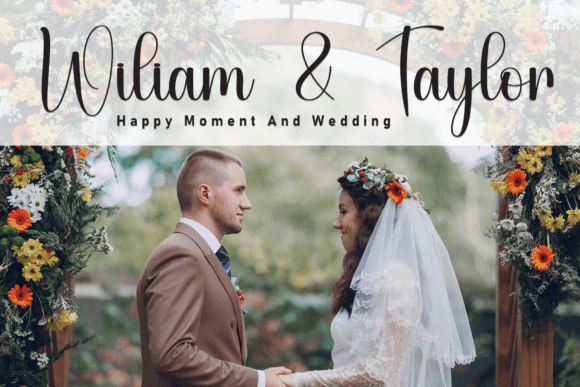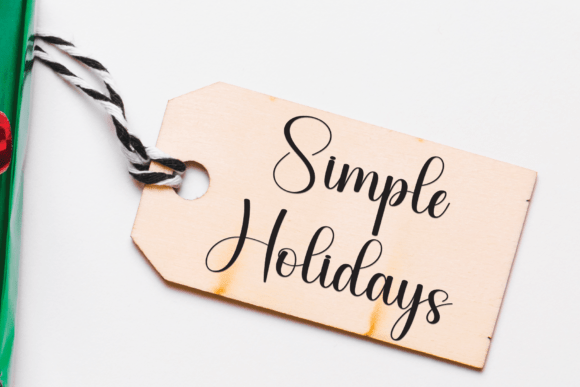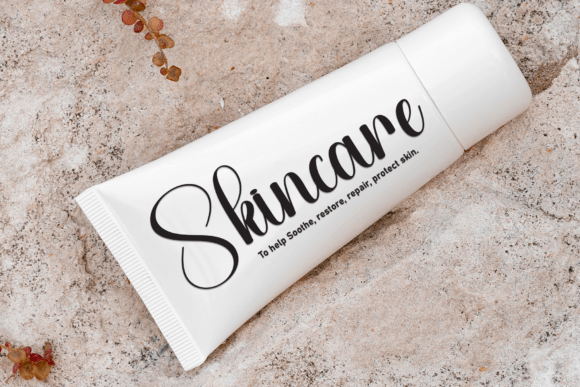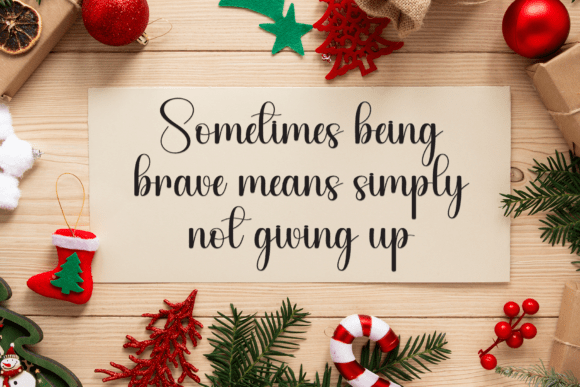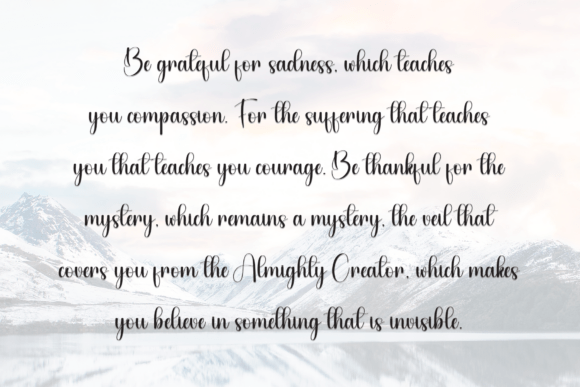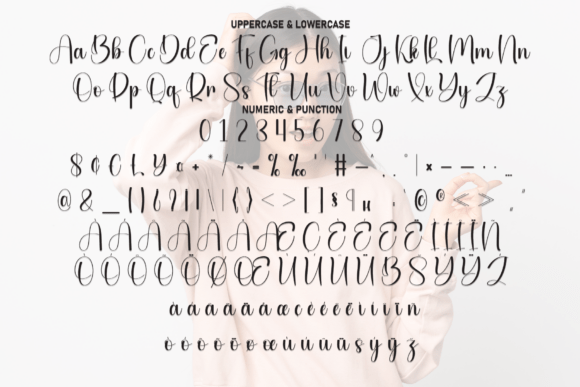
Introducing Delighter Font: Elevate Your Designs with Extraordinary Style
Are you tired of using the same old fonts in your designs? Do you want to add a touch of elegance and sophistication to your projects? Look no further than Delighter Font, the latest addition to your creative arsenal. Our font is designed to provide you with a unique and extraordinary experience, perfect for a wide range of applications.
Unleash Your Creativity with Delighter Font
Delighter Font is a special creative product that offers the latest style letters, perfect for making a statement in your designs. Whether you’re working on wall displays, wedding invitations, social media post logos, advertisements, product packaging, product designs, labels, photography, watermarks, invitations, stationery, or any other project that requires tasteful handwriting, our font has got you covered.
Delighter Font is the perfect addition to any design project, offering endless possibilities for creative expression. Here are just a few ideas to get you started:
- Wedding invitations: Add a touch of elegance and sophistication to your wedding invitations with Delighter Font.
- Social media graphics: Elevate your social media presence with eye-catching graphics and logos created with Delighter Font.
- Product packaging: Make your products stand out on store shelves with unique and stylish packaging designs featuring Delighter Font.
- Advertising: Create attention-grabbing ads with Delighter Font, perfect for billboards, magazines, and online campaigns.
- Stationery: Add a personal touch to your stationery with Delighter Font, perfect for business cards, letterheads, and more.
Why Choose Delighter Font?
With so many fonts on the market, why choose Delighter Font? Here are just a few reasons why our font stands out:
- Unique style: Delighter Font offers a unique and stylish design that’s sure to make your projects stand out.
- High-quality: Our font is crafted with precision and attention to detail, ensuring a high-quality finish in every project.
- Versatile: Delighter Font is perfect for a wide range of applications, from wedding invitations to product packaging.
Are you ready to take your designs to the next level? With Delighter Font, you’ll have access to a world of creative possibilities. Whether you’re a professional designer or a crafty DIY enthusiast, our font is the perfect addition to your toolkit.